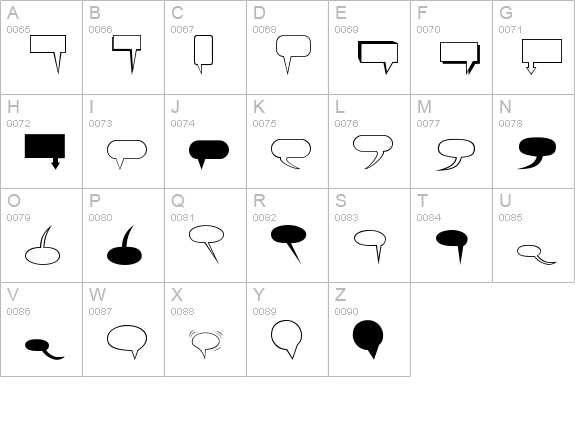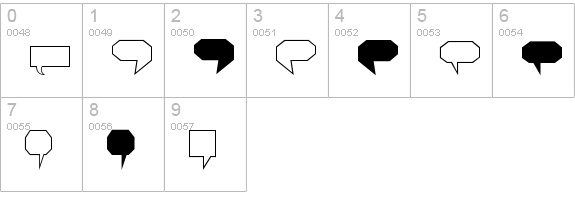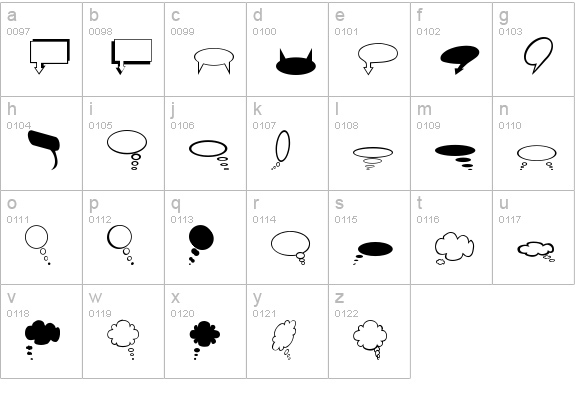
Carr Balloons font is a whimsical and playful typeface that will bring a touch of fun to any design project. With its rounded edges and bubbly appearance, this font is perfect for creating eye-catching headlines, invitations, or social media graphics. Whether you're working on a birthday party invitation or a logo for a children's brand, Carr Balloons font is sure to add a cheerful and lighthearted vibe to your designs. And the best part? Carr Balloons font is available for free download at FontsMarket.com. So go ahead and add a pop of personality to your projects with this delightful and charming font today!